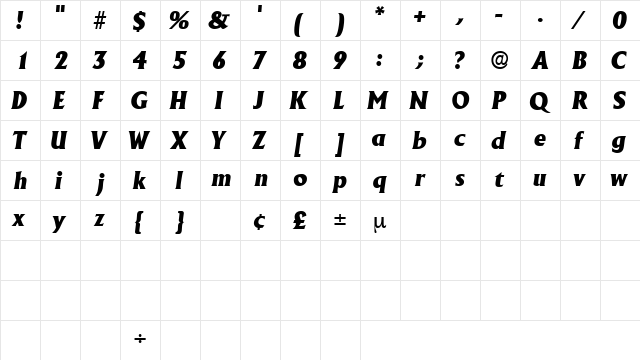
AnkuraSSK Italic
Design Context for AnkuraSSK Typeface
AnkuraSSK is a composed and adaptable typeface that performs quietly and consistently across a wide range of design contexts. Its italic angle brings a sense of urgency and motion to the letterforms.
Pro Tip: Use AnkuraSSK for emphasis, pull quotes, and subheadings where its slanted energy can add rhythm to the layout.